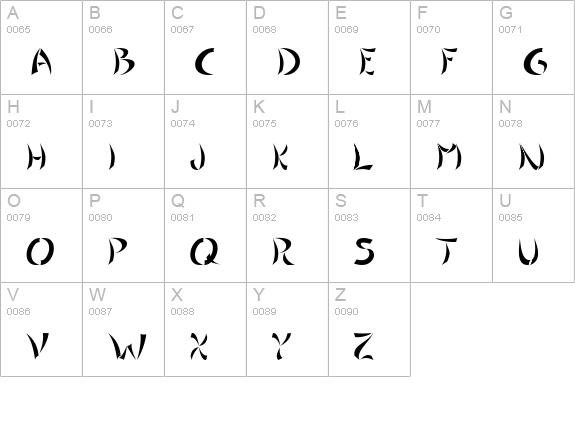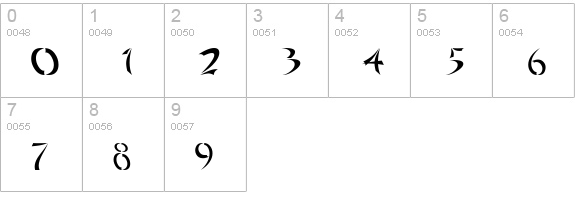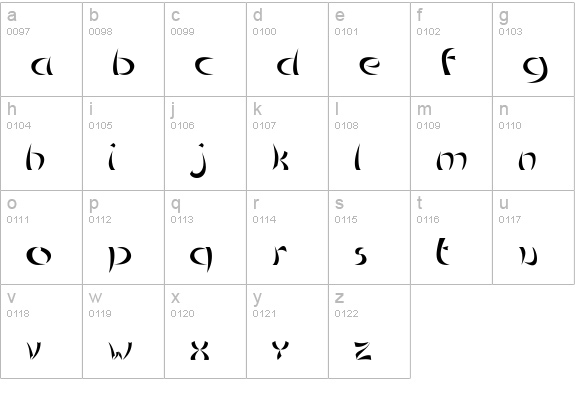
Chinoiseries font is a captivating and elegant typeface that exudes a sense of sophistication and charm. Its intricate strokes and delicate curves are reminiscent of traditional Chinese calligraphy, making it a perfect choice for projects that require a touch of Eastern-inspired beauty. This font is versatile and can be used for a variety of design applications, from branding to invitations to packaging. And the best part? Chinoiseries font is completely free to download at FontsMarket.com. With its unique blend of cultural influences and timeless appeal, this font is sure to elevate your designs and leave a lasting impression on your audience. Embrace the beauty of Chinoiseries font and let your creativity soar.